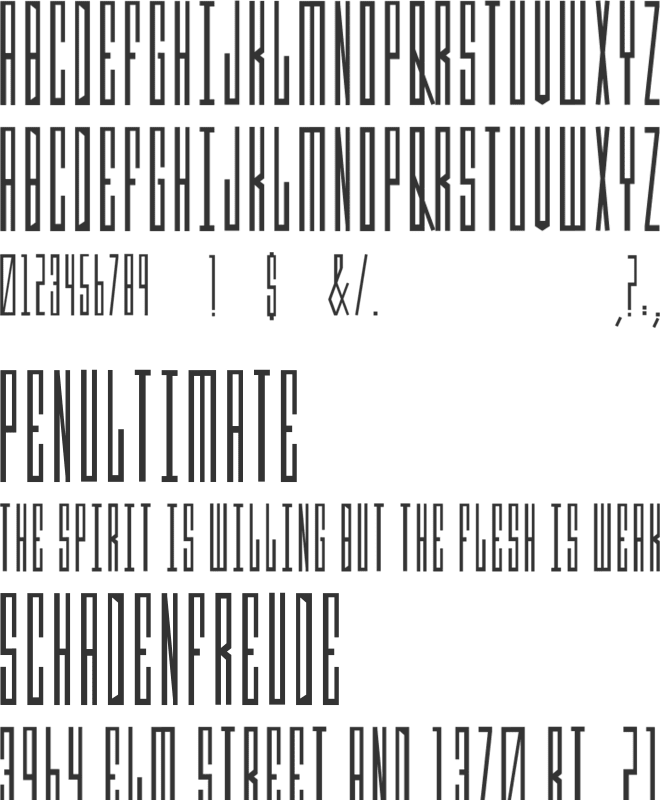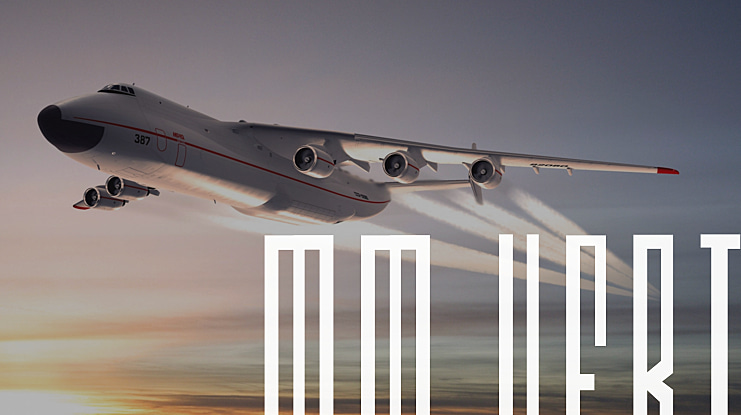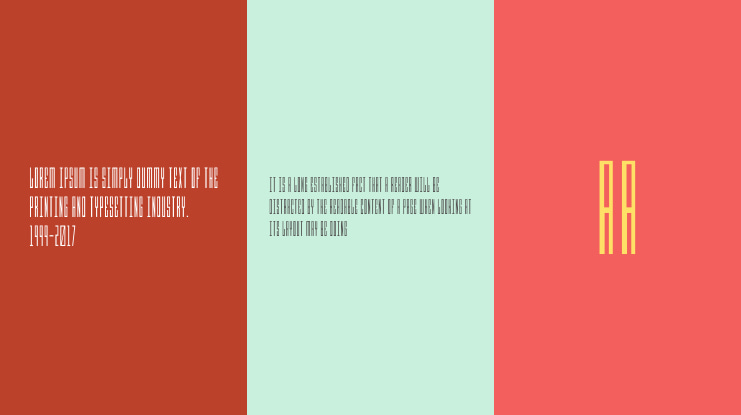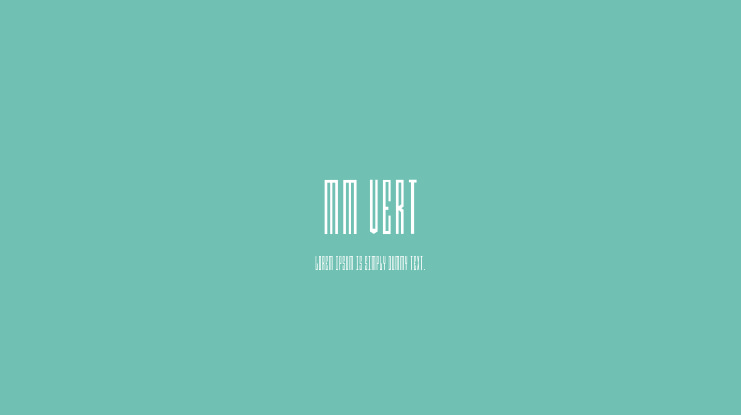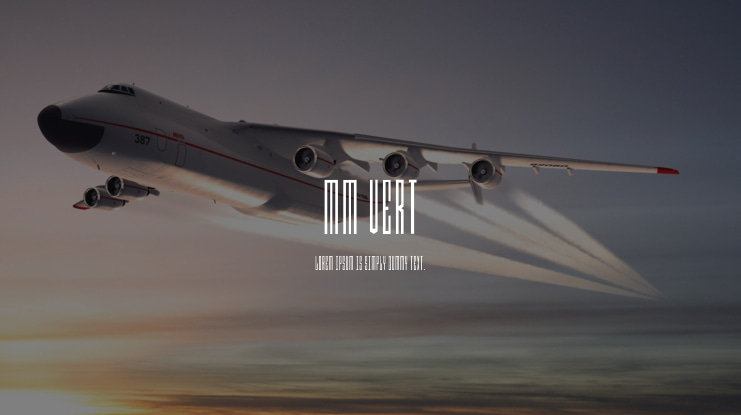
MM Vert Font
MM Vert is a contemporary display font that draws inspiration from BMX half-pipes, constructivist posters, and urban skylines. With its bold and eye-catching design, MM Vert is the ideal choice for your creative projects, adding a subtle industrial touch.